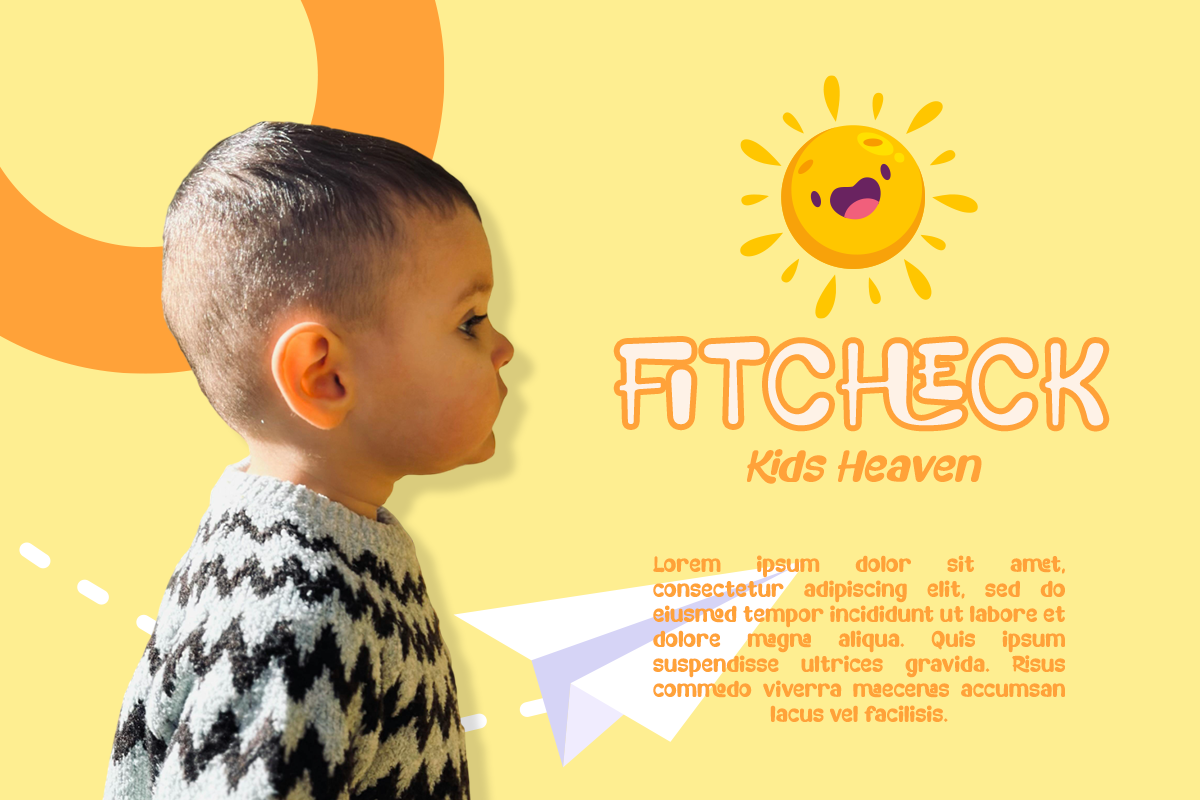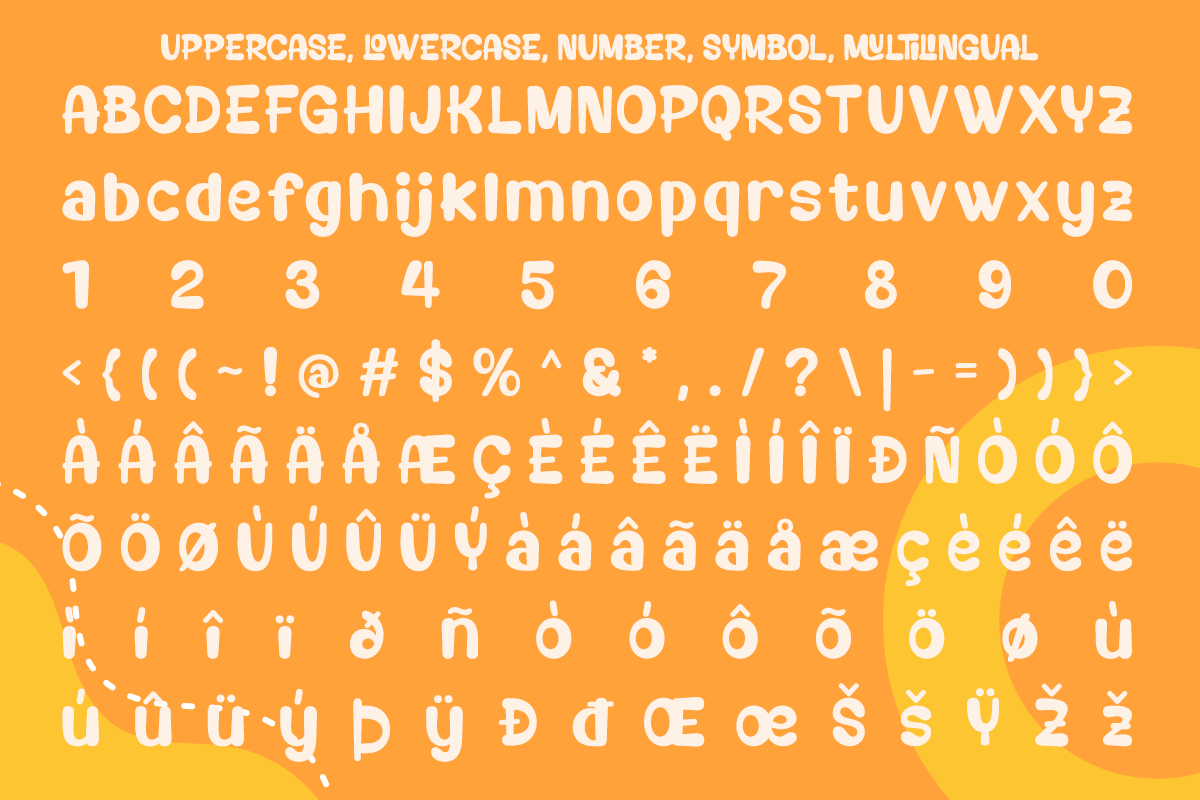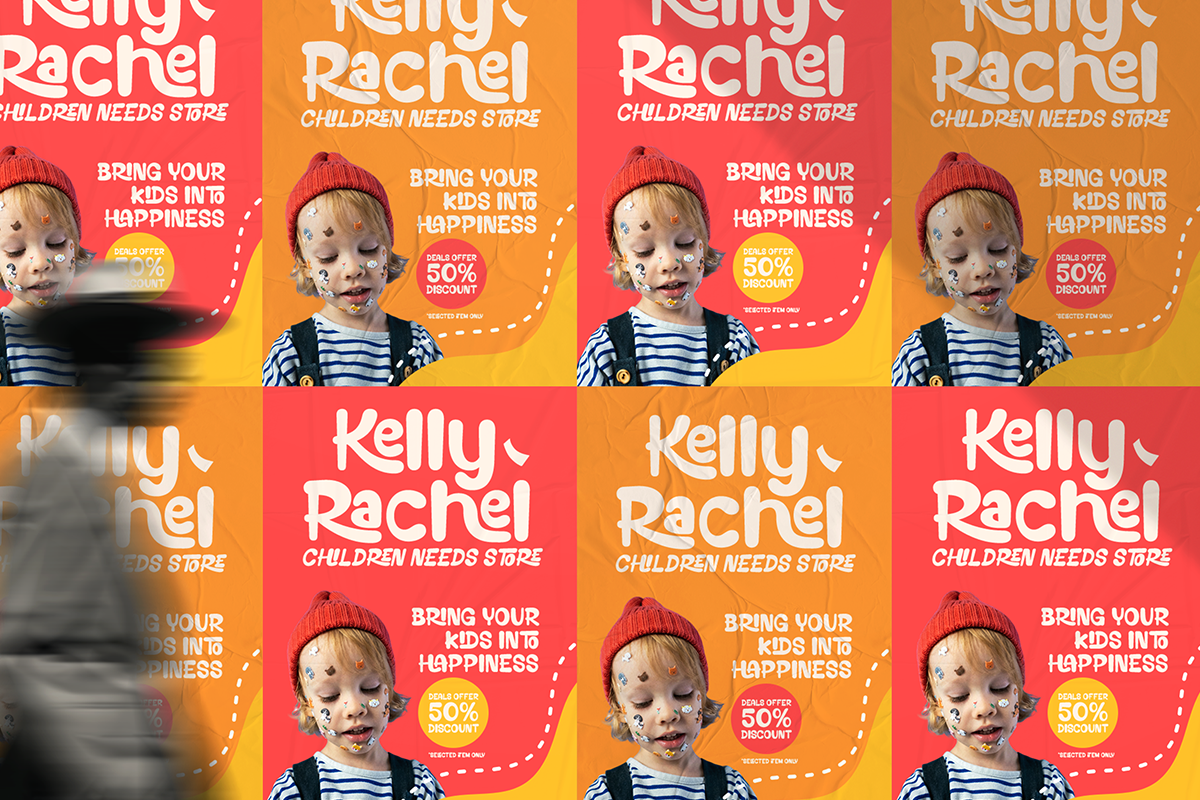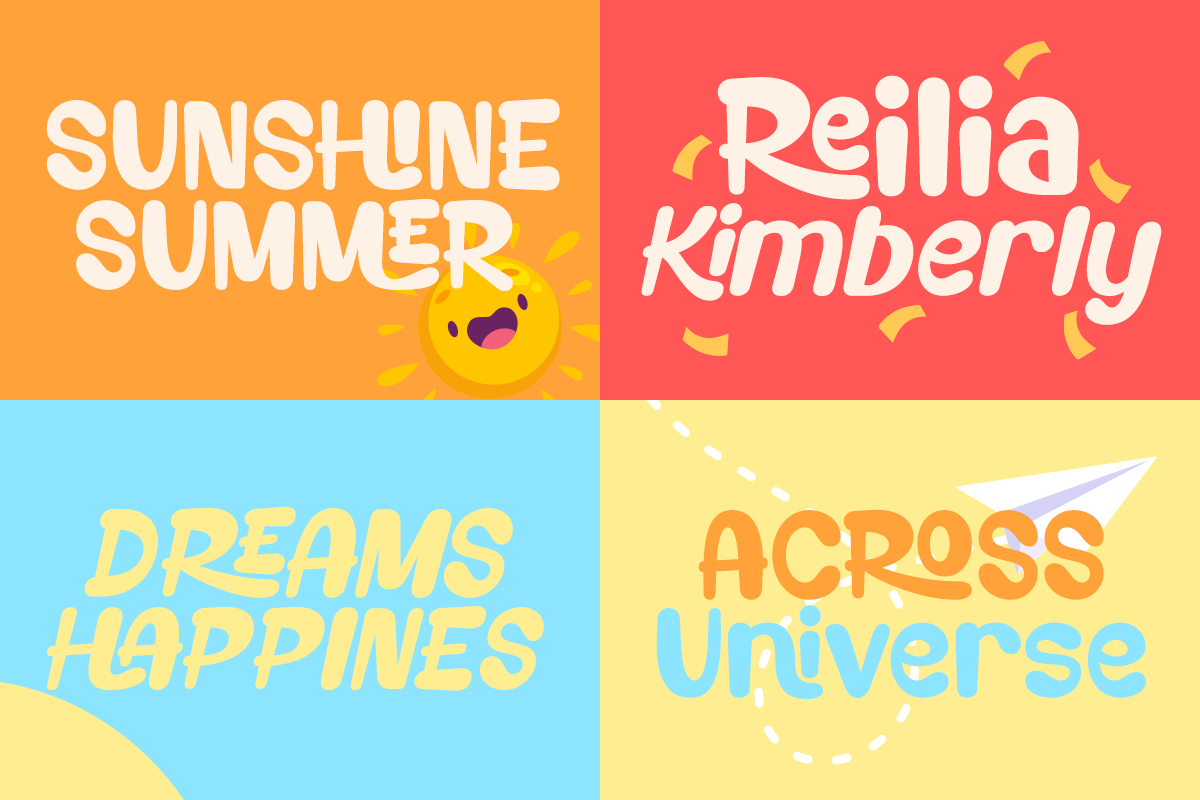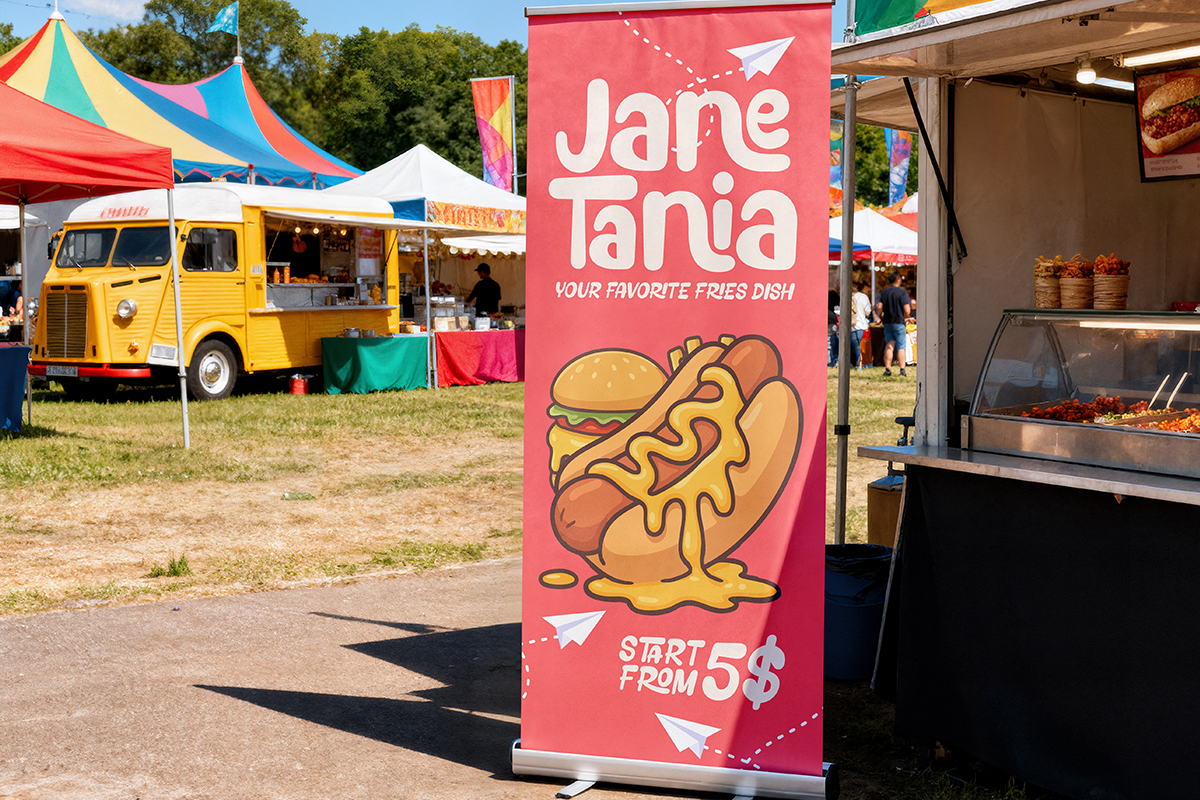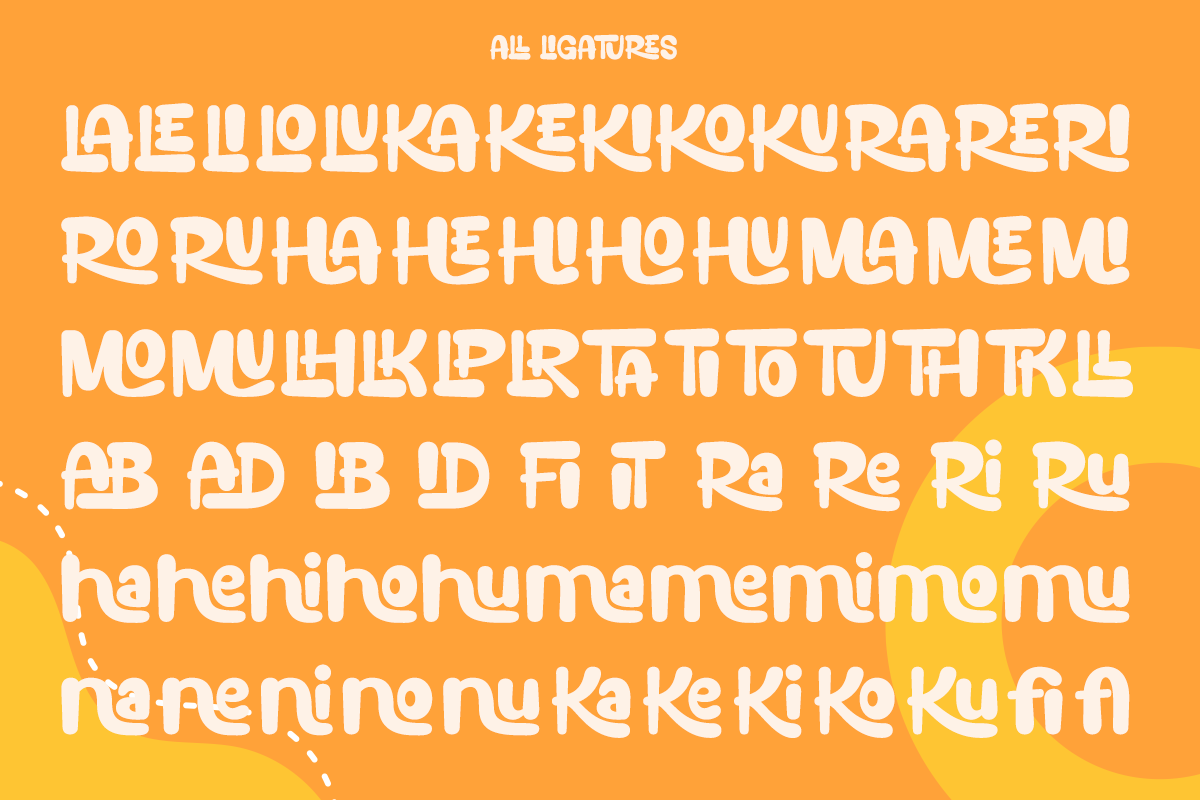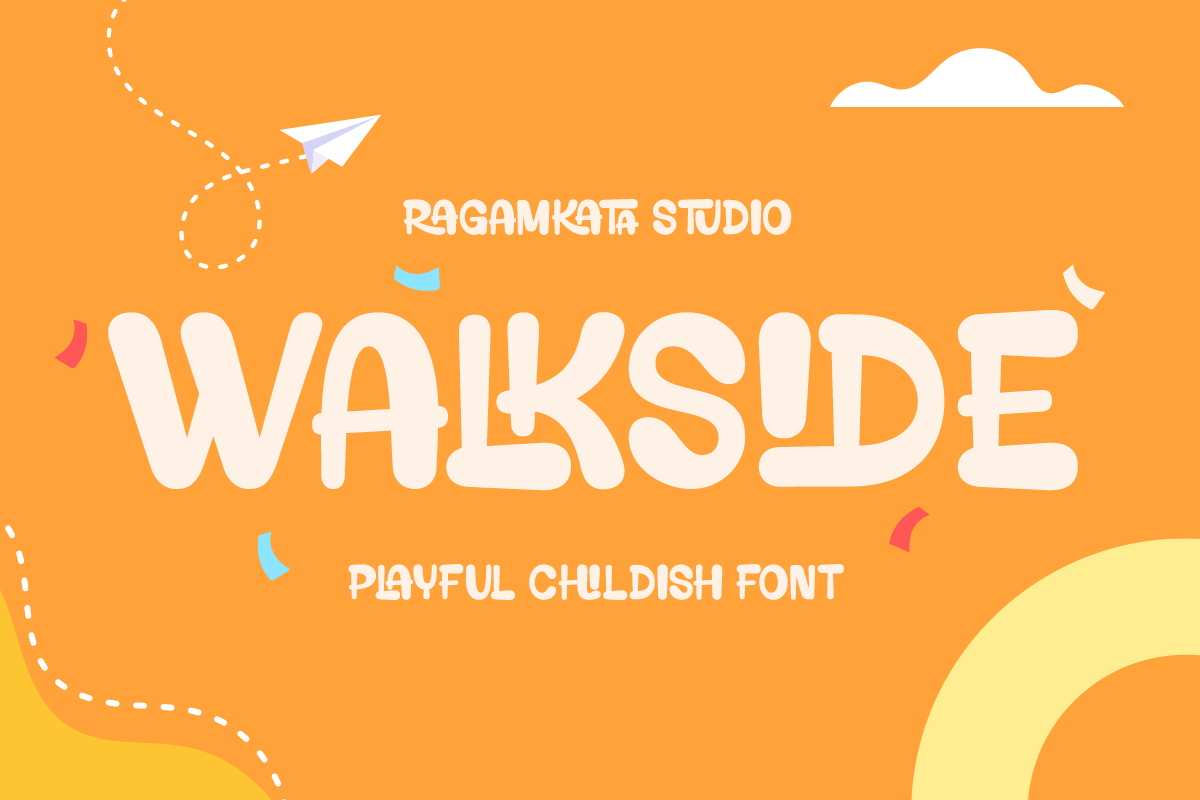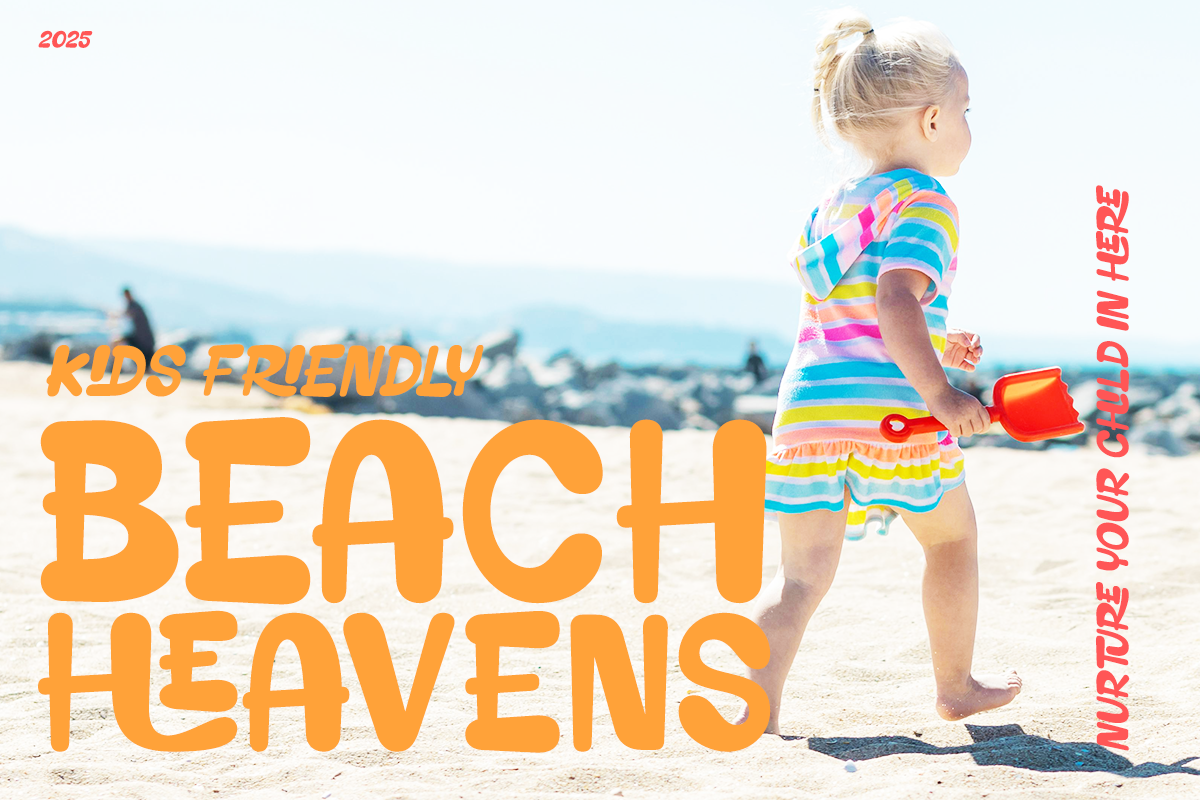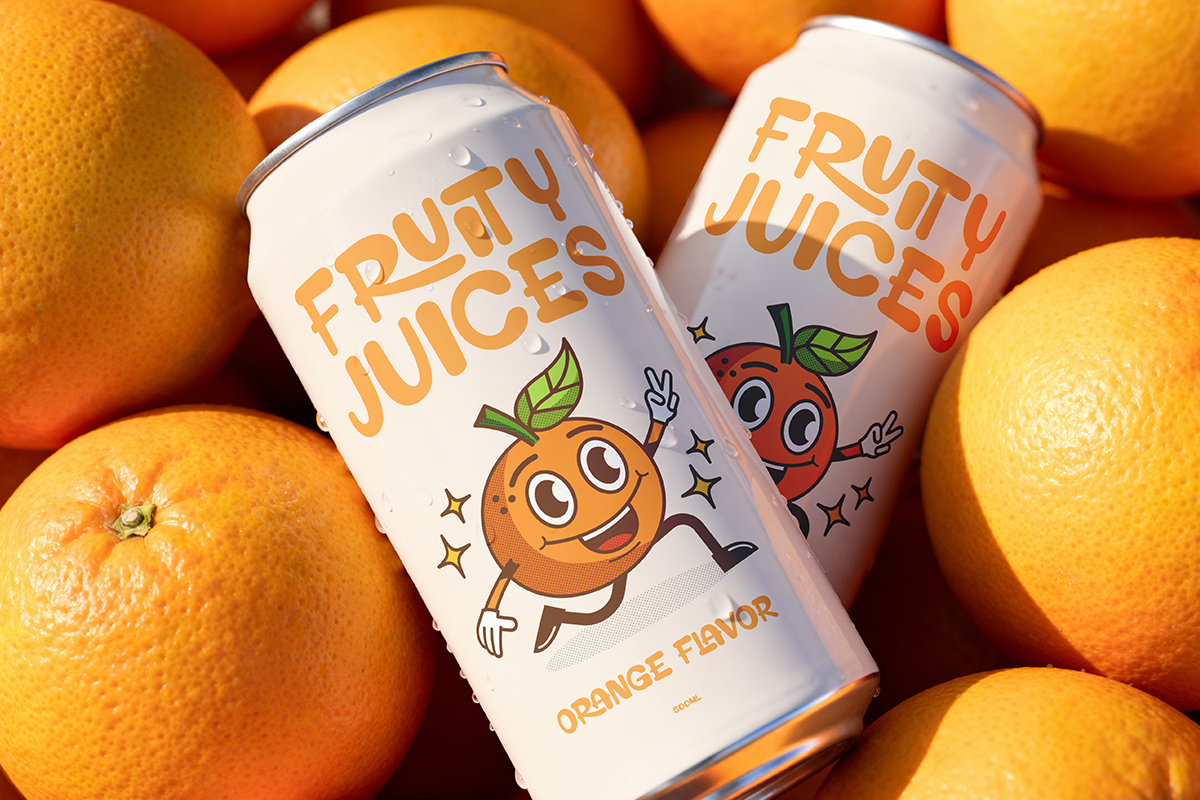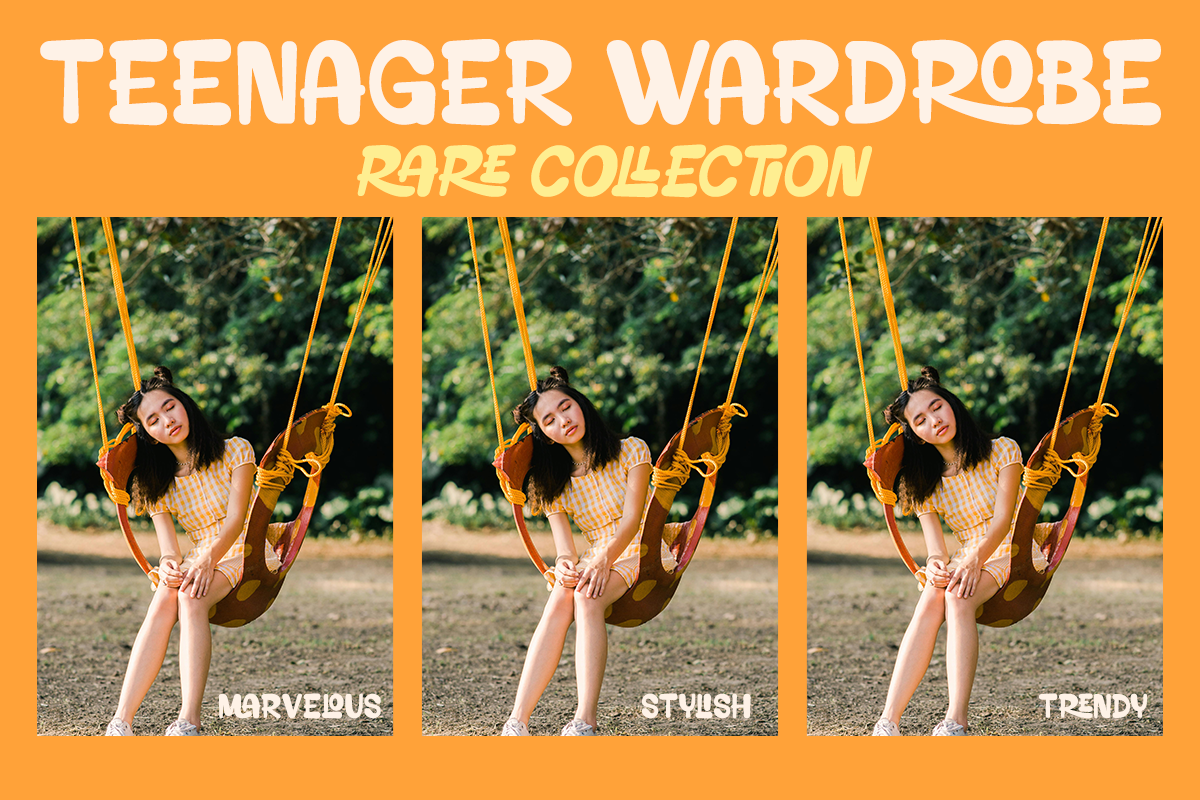
Walkside - Playful Childish Font
Bring a burst of joy and imagination to your creative projects with Walkside, a fun, bouncy, and delightfully whimsical display font. Designed to capture the carefree energy of childhood, Walkside features soft rounded edges, chunky letterforms, and a friendly hand-drawn feel that instantly adds warmth and personality.
Perfect for kids’ branding, storybooks, posters, birthday invitations, product packaging, school projects, and any design that needs a splash of playfulness, Walkside is both charming and easy to read. Its organic shapes and lively rhythm make every word feel inviting and full of character.
- Stylish Ligatures
- Number and Symbol